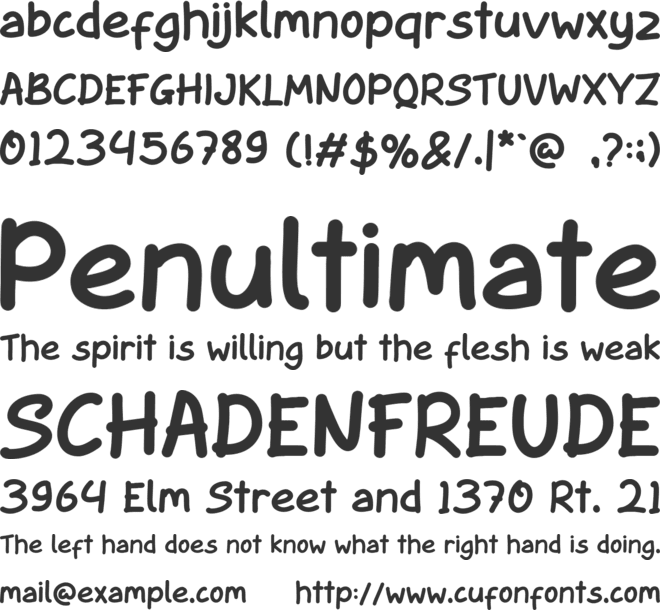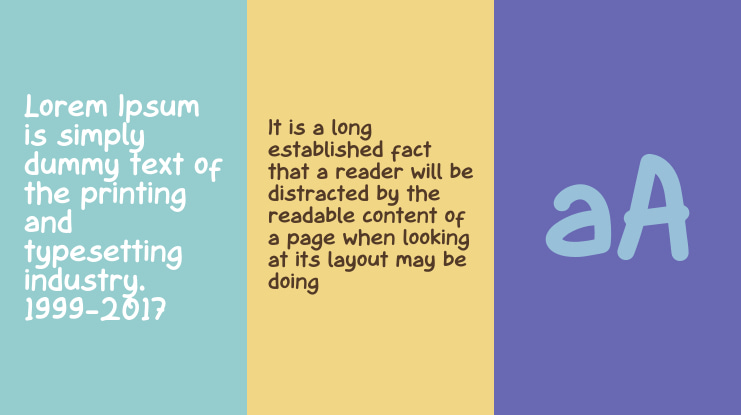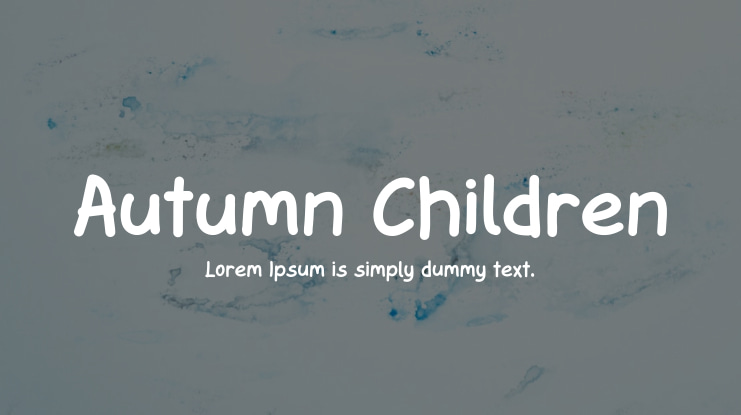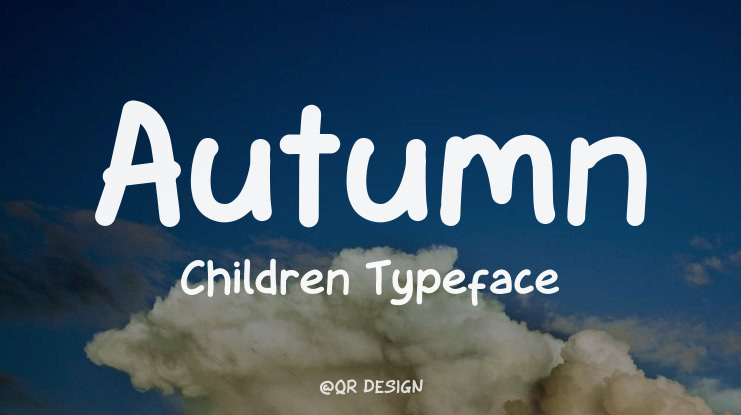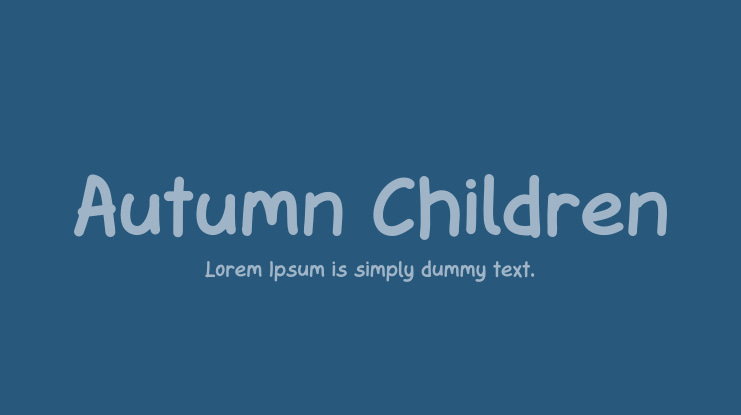
Autumn Children Font
Autumn Children Font is a bold and authentic display typeface. This font is suitable for various branding projects, including food, autumn themes, posters, logos, sports, and much more. It stands out in a wide range of contexts.